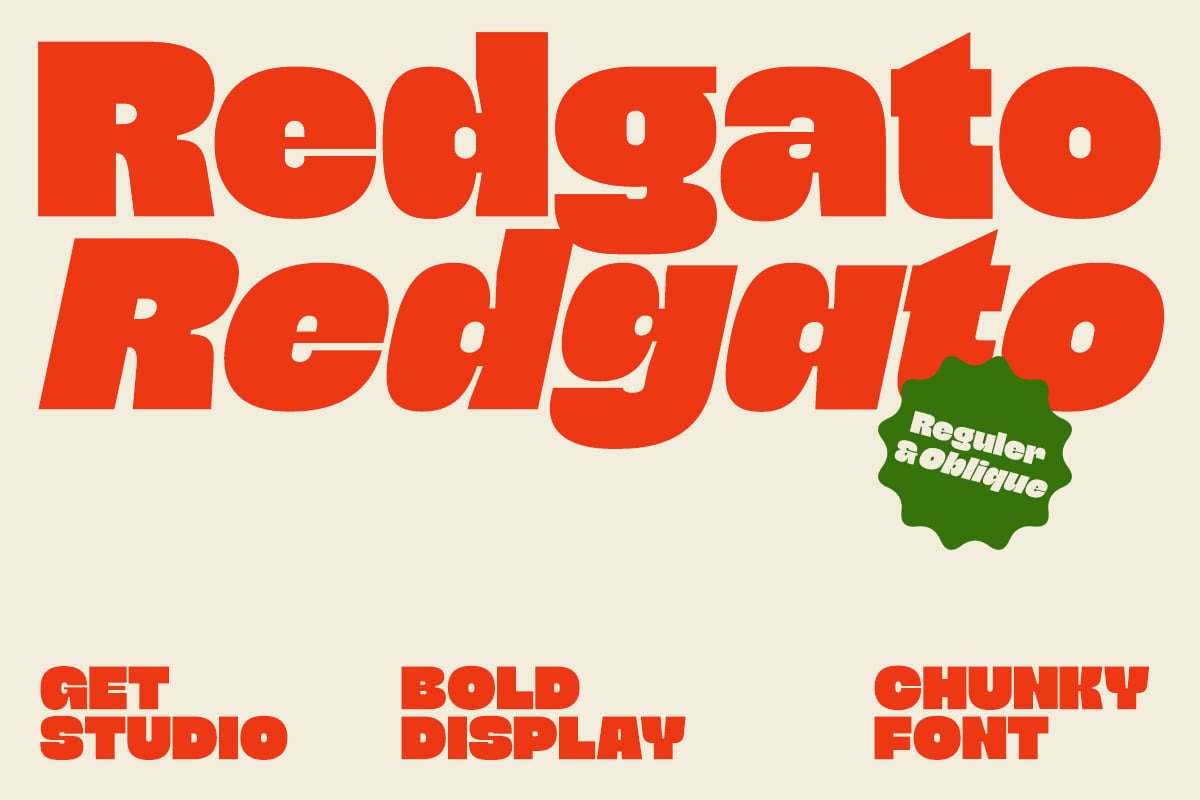
Redgato – Bold Sans Serif Font
Redgato – Bold Sans Serif Font is a versatile font designed to adapt beautifully across different design styles, offering dependable readability and balance.Redgato is a chunky bold display font with sharp, blocky letterforms made to stand out instantly. Its heavy weight and crisp cuts give it a strong visual presence that feels confident, energetic, and eye-catching. Perfect for headlines, branding, packaging, posters, menus, and promotional designs that need bold impact.
Redgato comes with two styles: Regular and Oblique. The Regular style feels solid and grounded, while the Oblique introduces a forward-leaning motion that adds attitude and emphasis. Together, they offer flexibility for expressive typography, especially suited for food branding, retail visuals, and modern display projects.